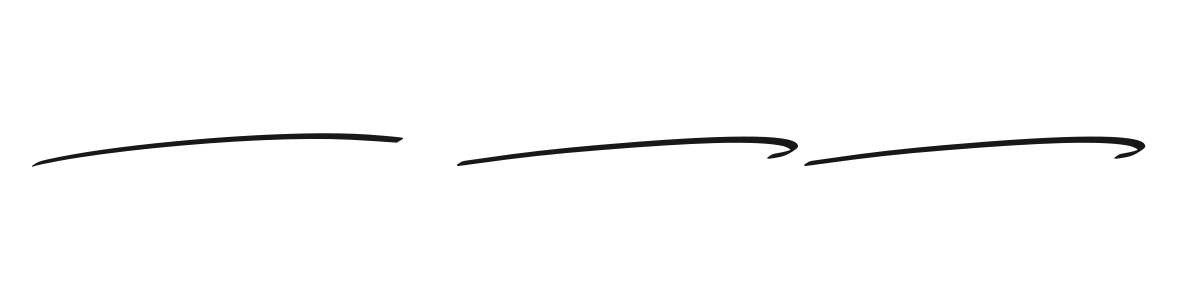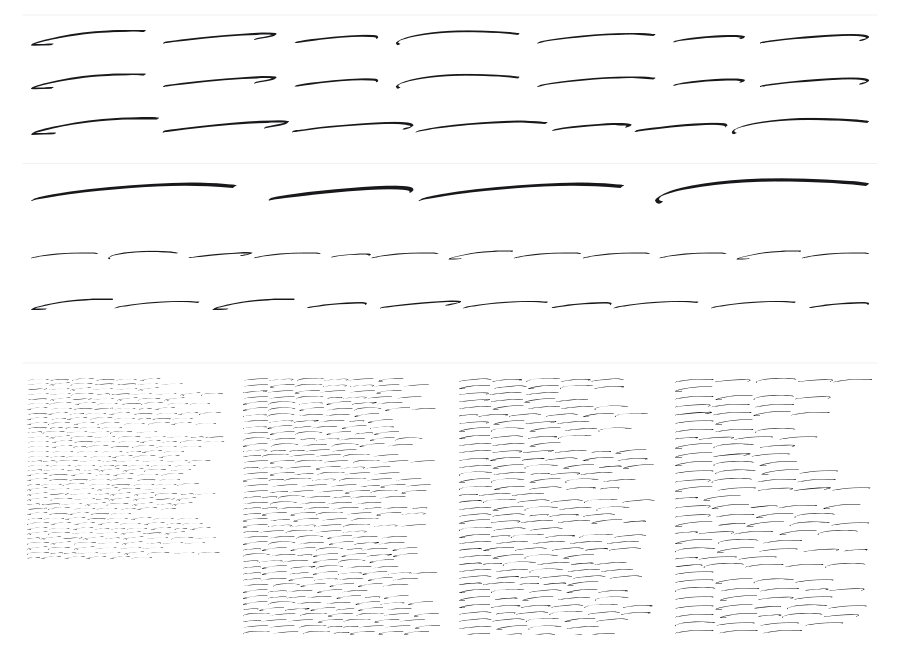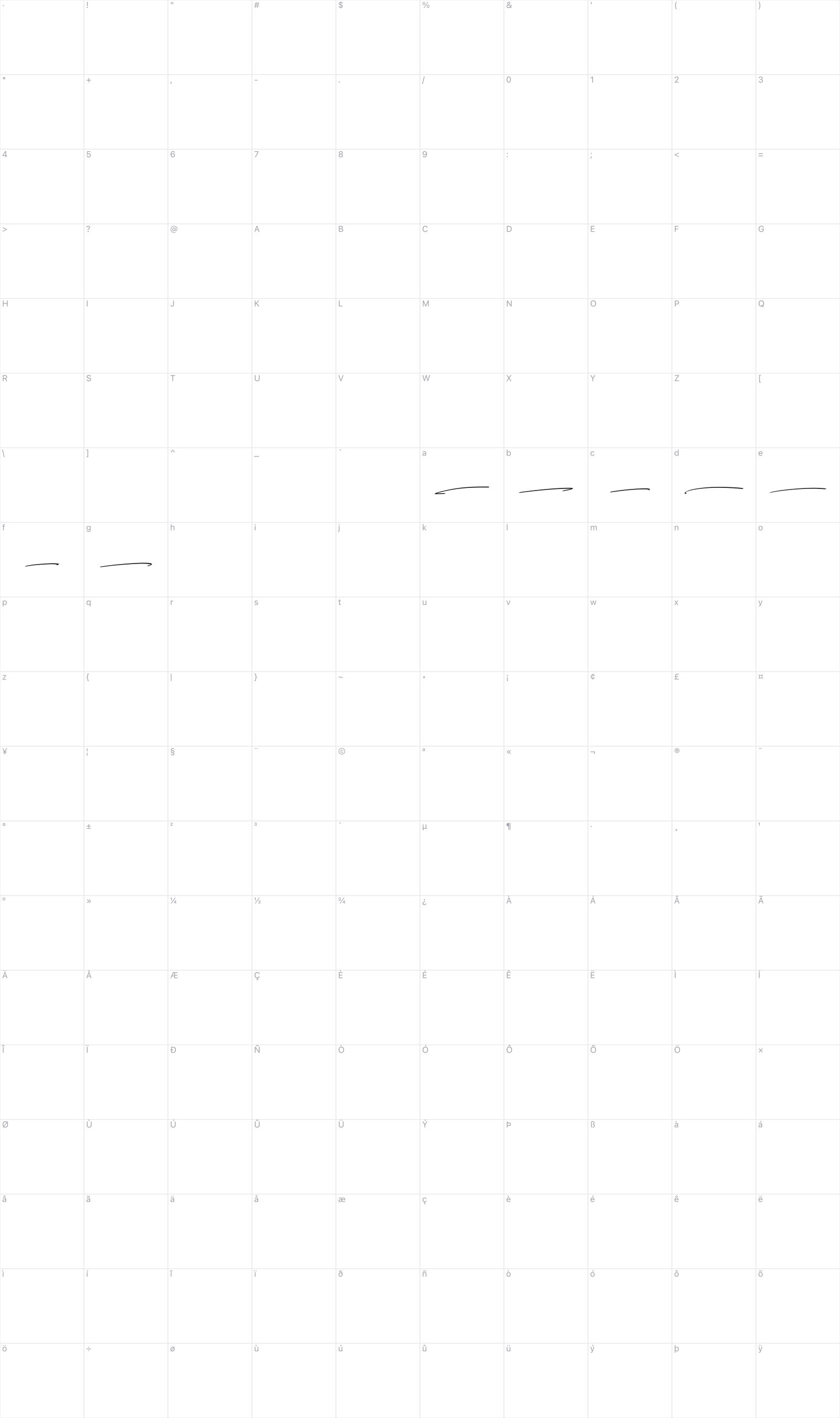
Over Thingking
Over Thingking is a casual script defined by long, sweeping horizontal strokes that feel like a single exhale across the page. The hairline-thin construction and relaxed baseline movement give it an effortlessly cool, hand-penned quality. It suits brand marks, packaging, and any headline work where understated elegance is the goal.